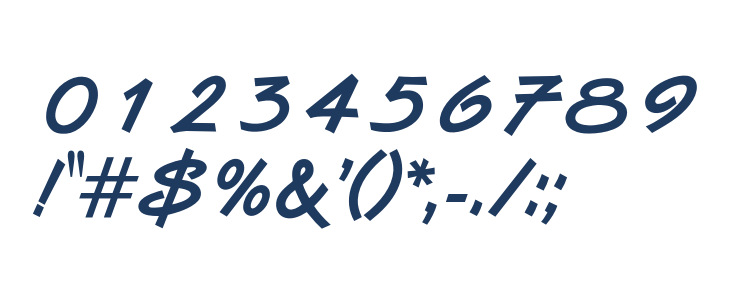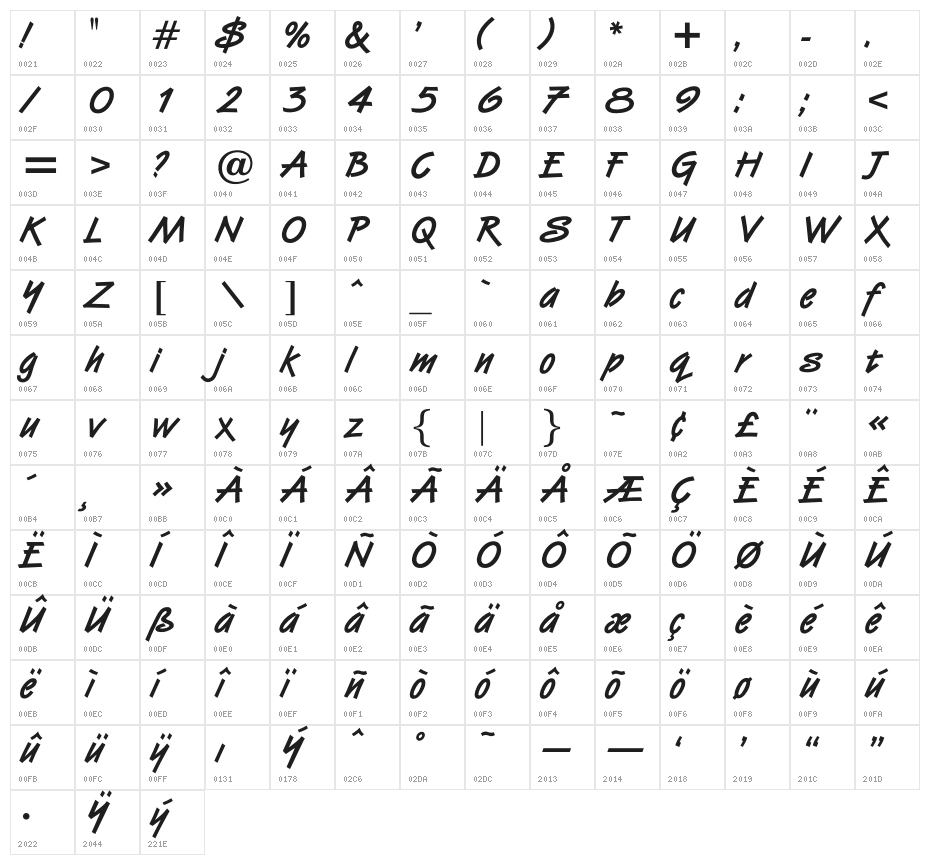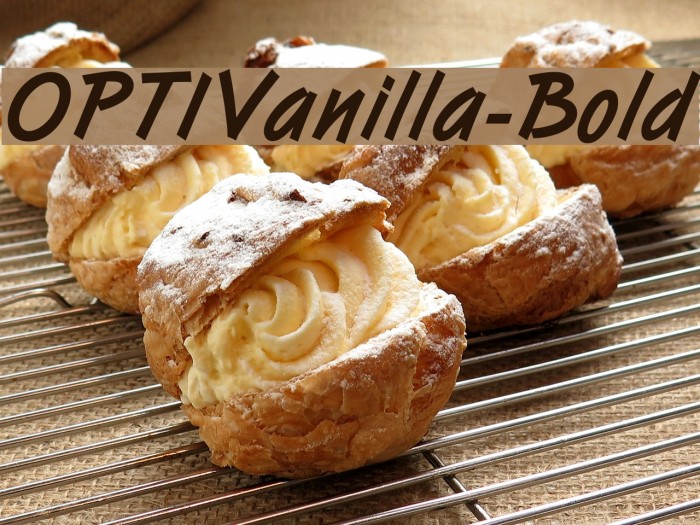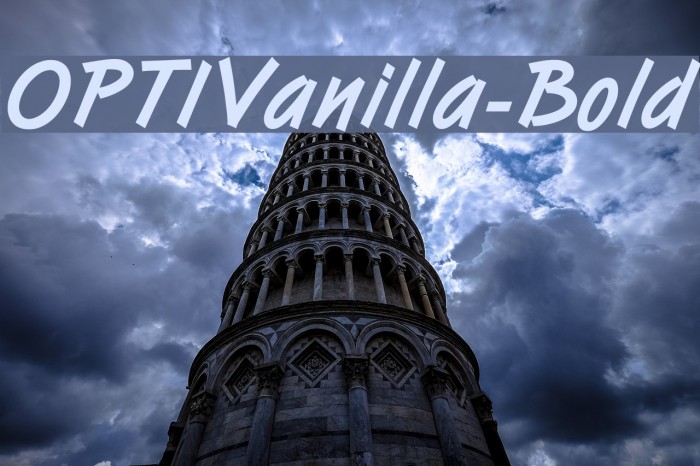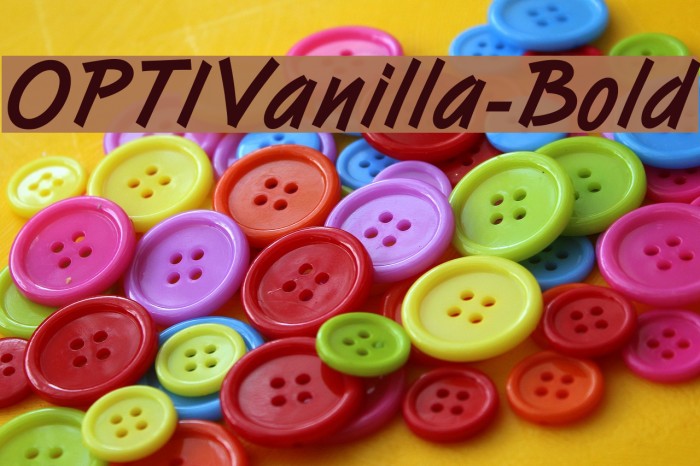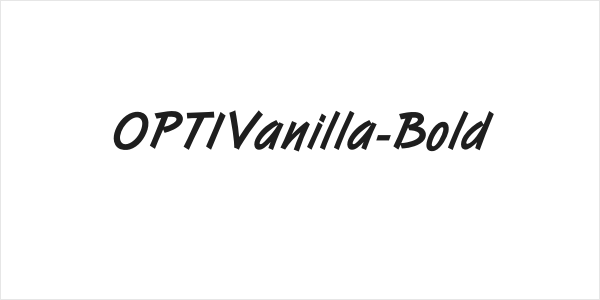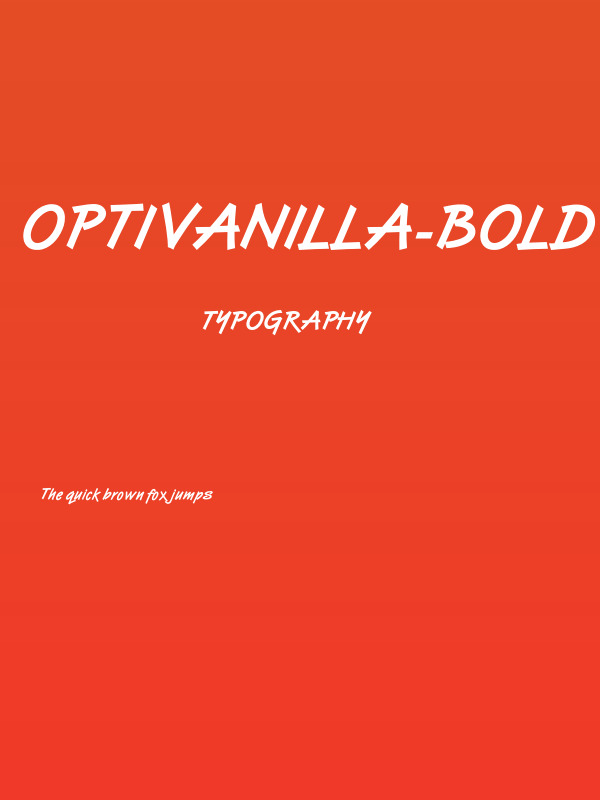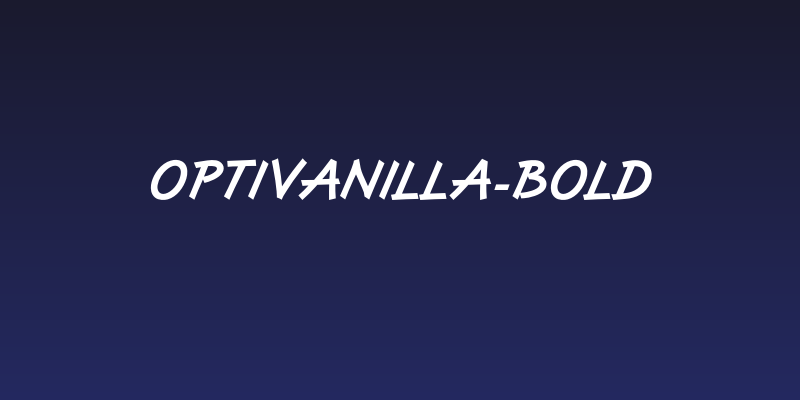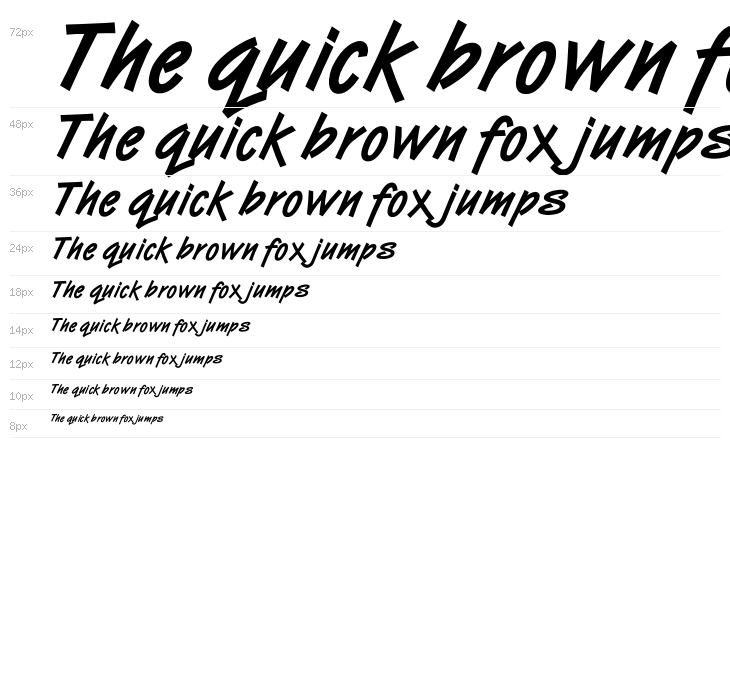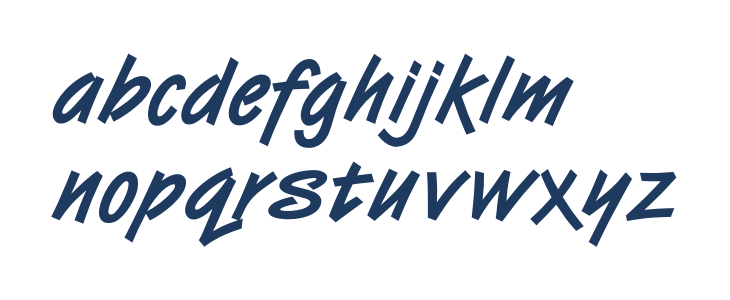
OPTIVanilla-Bold Font
OPTIVanilla-Bold Description
This font features a bold and dynamic style with a strong slant, giving it a sense of motion and energy. The characters are well-defined with sharp angles and a consistent stroke width, creating a cohesive and impactful appearance. The uppercase letters are particularly striking, with a slightly exaggerated height that enhances their presence. The lowercase letters maintain the same boldness, ensuring readability while adding a touch of flair. The numerals and special characters are designed to match the overall aesthetic, making them suitable for a variety of uses. This font's boldness and slant make it ideal for attention-grabbing headlines and creative projects.
| Proposed Projects | Ideal for headlines, posters, branding, and advertising materials that require a strong visual impact. |